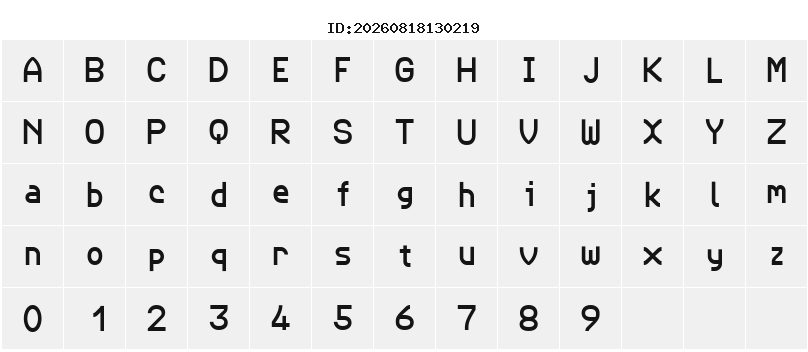
Smoo Preview
• Font Name: Smoo
• Full Font Name: Smoo-ABNormal
• PostScript Name: Smoo-ABNormal
About Smoo.ttf
Smoo.ttf is a modern, elegant sans-serif font designed for ultimate readability and visual harmony. Perfect for branding, headlines, web design, and print materials.